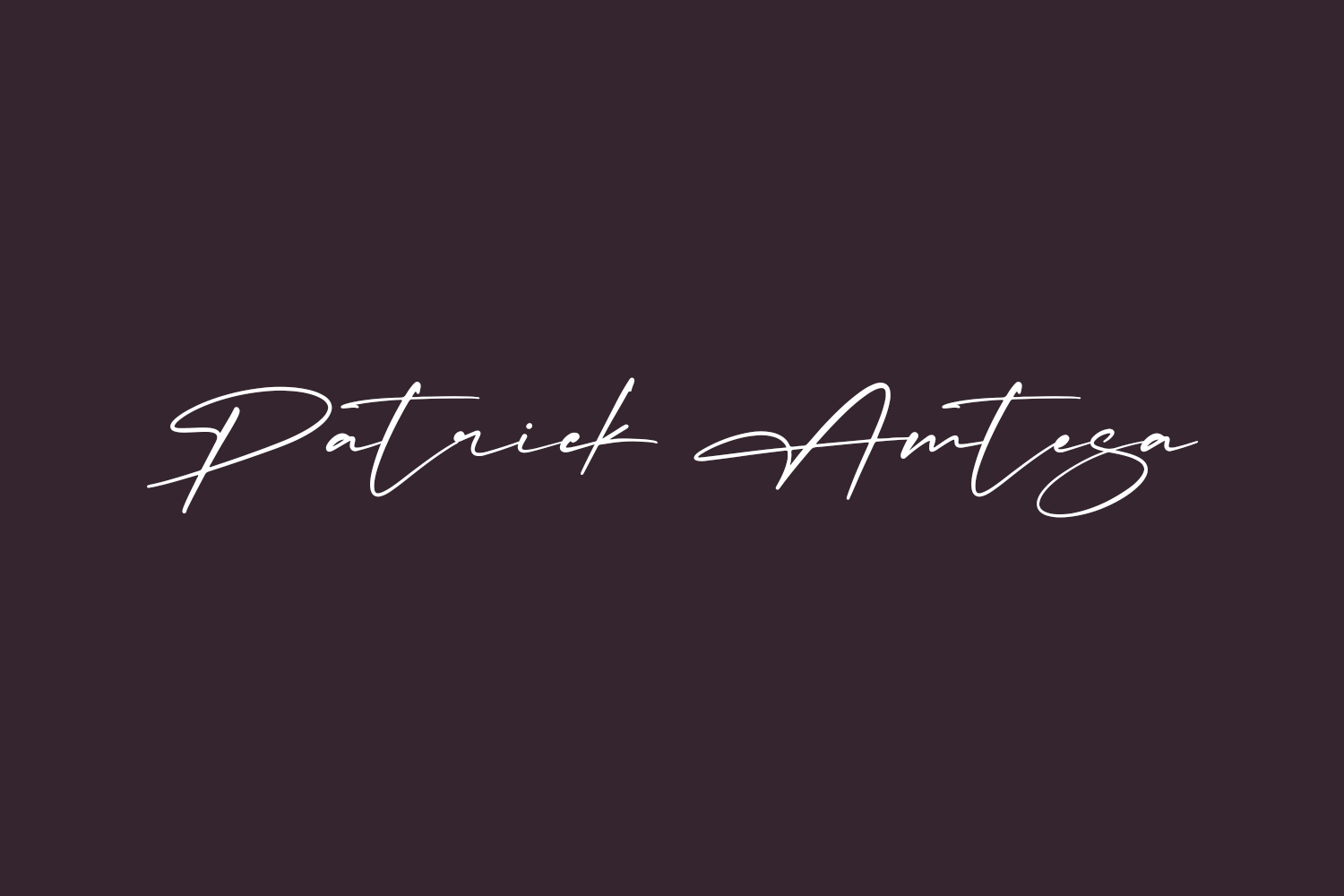
Patrick Amtesa Free Font is a thin and cursive handwritten font. With its neat and beautiful arrangement of letters, this typeface will look outstanding in both formal and non-formal designs. Patrick Amtesa Free Font was designed by Letterena Studios and is free for personal use only. Please purchase the full version for commercial use.
Designed by Letterena Studios